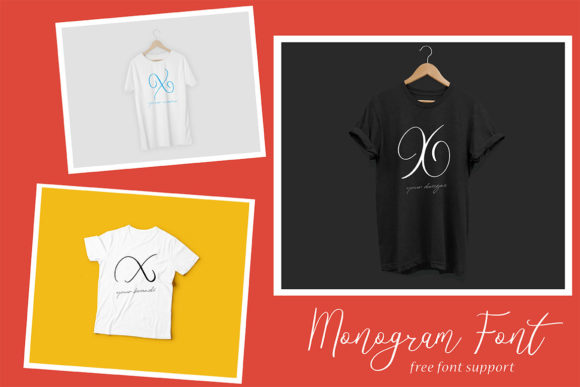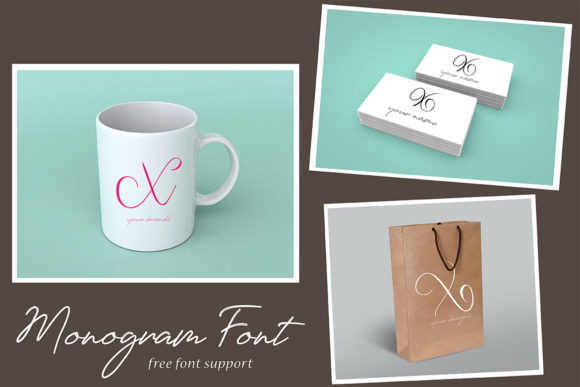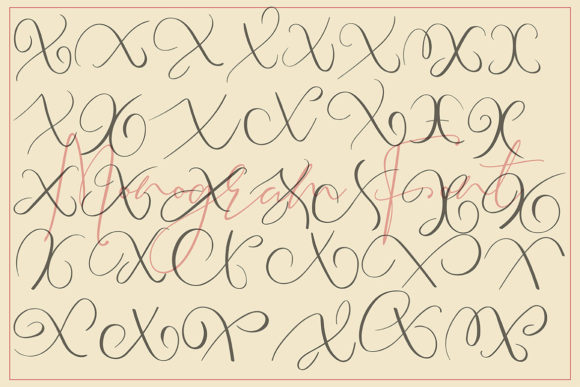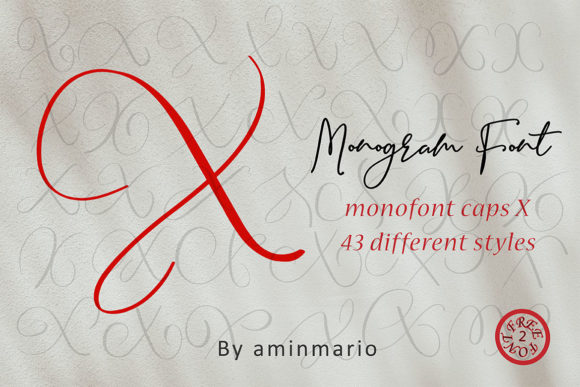
Introduction to Monogram X | Monofont Caps X Font
Have you ever found yourself stuck in a creative rut, searching for the perfect design element to elevate your project? It’s a moment we’ve all been there, pouring over fonts, graphics, and other design resources, hoping to strike gold. But what if you could add a touch of personality to your work with a single, elegant font? Enter Monogram X | Monofont Caps X Font, a game-changing design resource that’s about to revolutionize the way you approach your creative projects.
Monogram X | Monofont Caps X Font is a stunning collection of 36 unique monogram styles, each one crafted to resemble the natural handwriting of a capital X. With its high-quality design and transparent background, this font is perfect for adding a personal touch to your work. Whether you’re a seasoned designer or just starting out, this versatile font is sure to become a valuable addition to your design arsenal.
Key Features of Monogram X | Monofont Caps X Font
- High-quality design resource ideal for creative projects and branding
- Comes with a transparent background, allowing for easy integration into various design elements
- Designed to work well in a variety of sizes, from small to large, with optimal results at 300 DPI
- Unique monogram design with a clean and modern aesthetic, perfect for adding a touch of sophistication to any project
- Monofont Caps X Font is a versatile design element that can be used in a range of creative applications, from logos and branding to packaging and marketing materials
Honest Review: Monogram X | Monofont Caps X Font
I recently had the chance to work with Monogram X | Monofont Caps X Font and I must say it’s been a great addition to my design resource collection. The font is perfect for creating a professional and high-quality look for any creative project. One of the standout features is the transparent background option, which makes it incredibly easy to layer and arrange text.
- ✨ The font is highly customizable, with a wide range of sizes and styles available.
- ✨ The transparent background option is a game-changer for designers who want to create visually appealing and complex compositions.
While the font is excellent in many ways, there are a few limitations to consider. ⚠️ The font may not be suitable for projects that require a more playful or casual tone, as it tends to lean towards a more formal look. Additionally, the font may not be compatible with all design software or operating systems.
Overall, I’m very impressed with Monogram X | Monofont Caps X Font and would highly recommend it to designers who are looking for a high-quality, professional font. With its transparent background option and wide range of customization options, it’s an excellent choice for any creative project.
Tips for Getting the Most Out of Monogram X | Monofont Caps X Font
Here are a few tips for getting the most out of this high-quality font: use it in combination with a transparent background to make your text elements stand out, experiment with different font sizes and colors to create a unique visual effect, and use it in a variety of creative projects to add consistency and style.